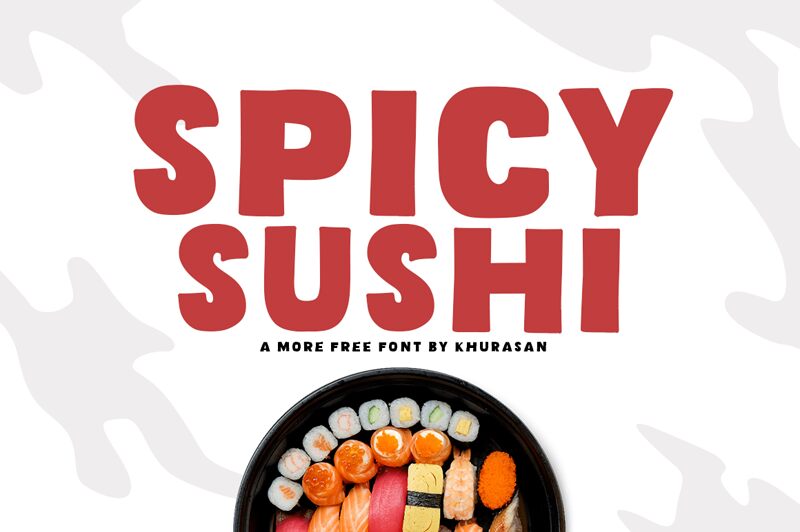
Spicy Sushi
Spicy Sushi, a vibrant display font designed by Khurasan, brings a playful and whimsical touch to any project.
With its extra-bold weight and semi-expanded width, this cartoon-inspired typeface is perfect for creating eye-catching headlines and logos that demand attention. Add a dash of fun to children's books or comic strips, infuse energy into food packaging designs or use it for animated videos and social media content.
Spicy Sushi is the spicy kick your creative projects need!